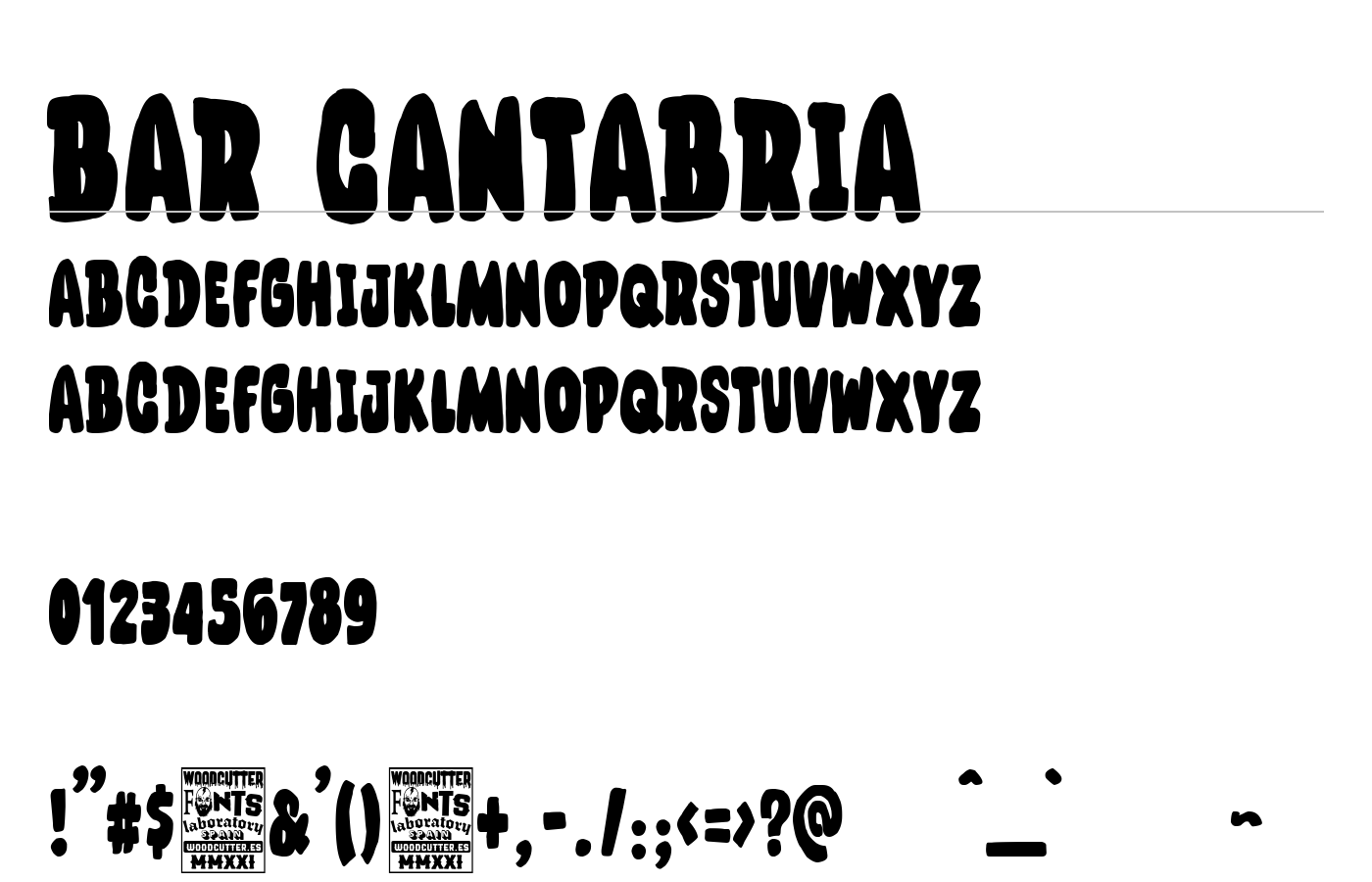
Bar Cantabria is a bold and playful display font with a hand-drawn, slightly irregular style that gives it a friendly and approachable feel. Its thick, rounded strokes and compact letterforms make it ideal for attention-grabbing headlines, logos, and informal branding that seeks a fun and casual vibe. This font works well in creative projects, posters, or packaging where a strong, quirky personality is needed.
Bar Cantabria Font
About Bar Cantabria Font